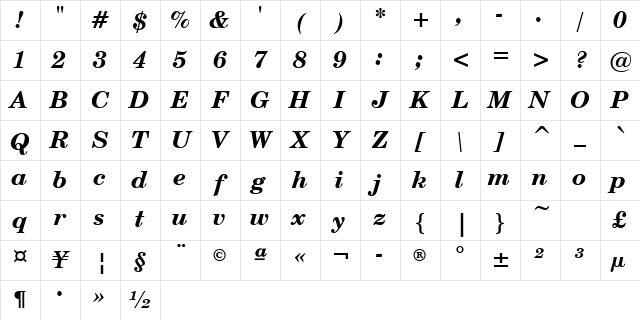
CentSchbkGreek BT Bold Inclined
Style: Bold Inclined
Complete CentSchbkGreek BT Bold Inclined glyph index. Displaying only characters natively supported by CentSchbkGreek BT Bold Inclined font.
Design Context for CentSchbkGreek BT
CentSchbkGreek BT is a composed and adaptable typeface that performs quietly and consistently across a wide range of design contexts. Its bold stroke weight gives it real presence on the page.